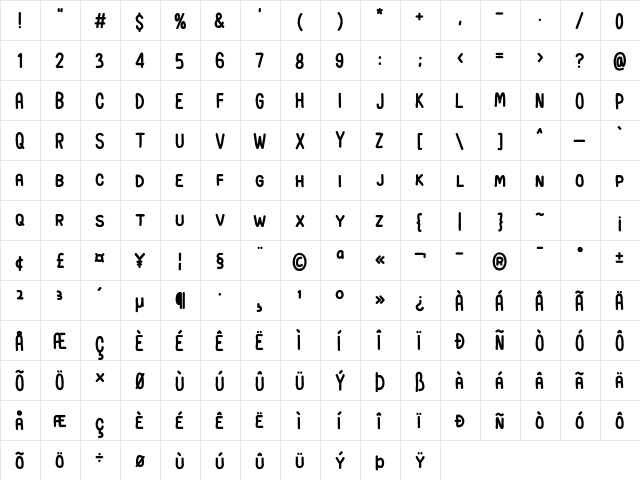
Earth Spirit Regular
Design Context for Earth Spirit Typeface
Earth Spirit offers clean, dependable letterforms without strong stylistic allegiance, making it a practical choice for designers who need flexibility.